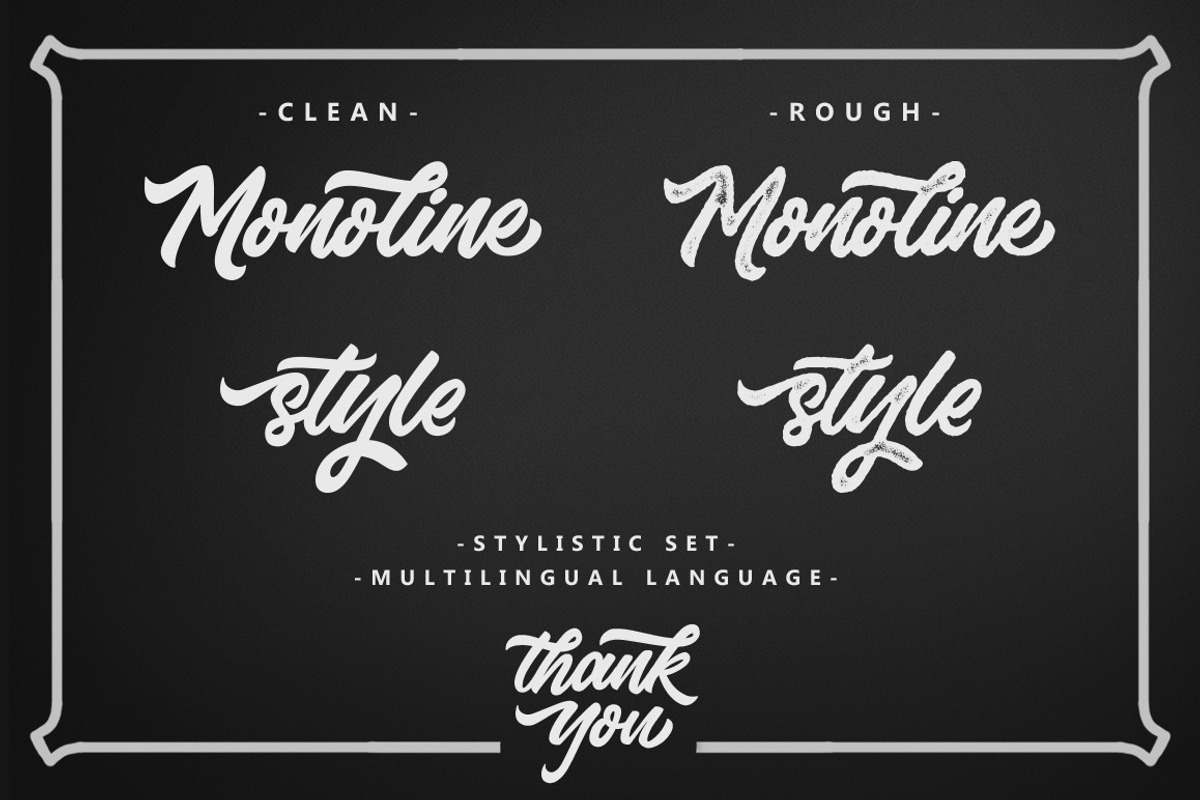
Saekana Script
Saekana Script is a bold script. Saekana a beautiful for logotype, website header, fashion design,wedding card design and any more. Saekana comes with two style rough and clean. It contains a full set of lower & uppercase letters, a large range of punctuation, numerals, and multilingual support.
- Bonus Swash and border